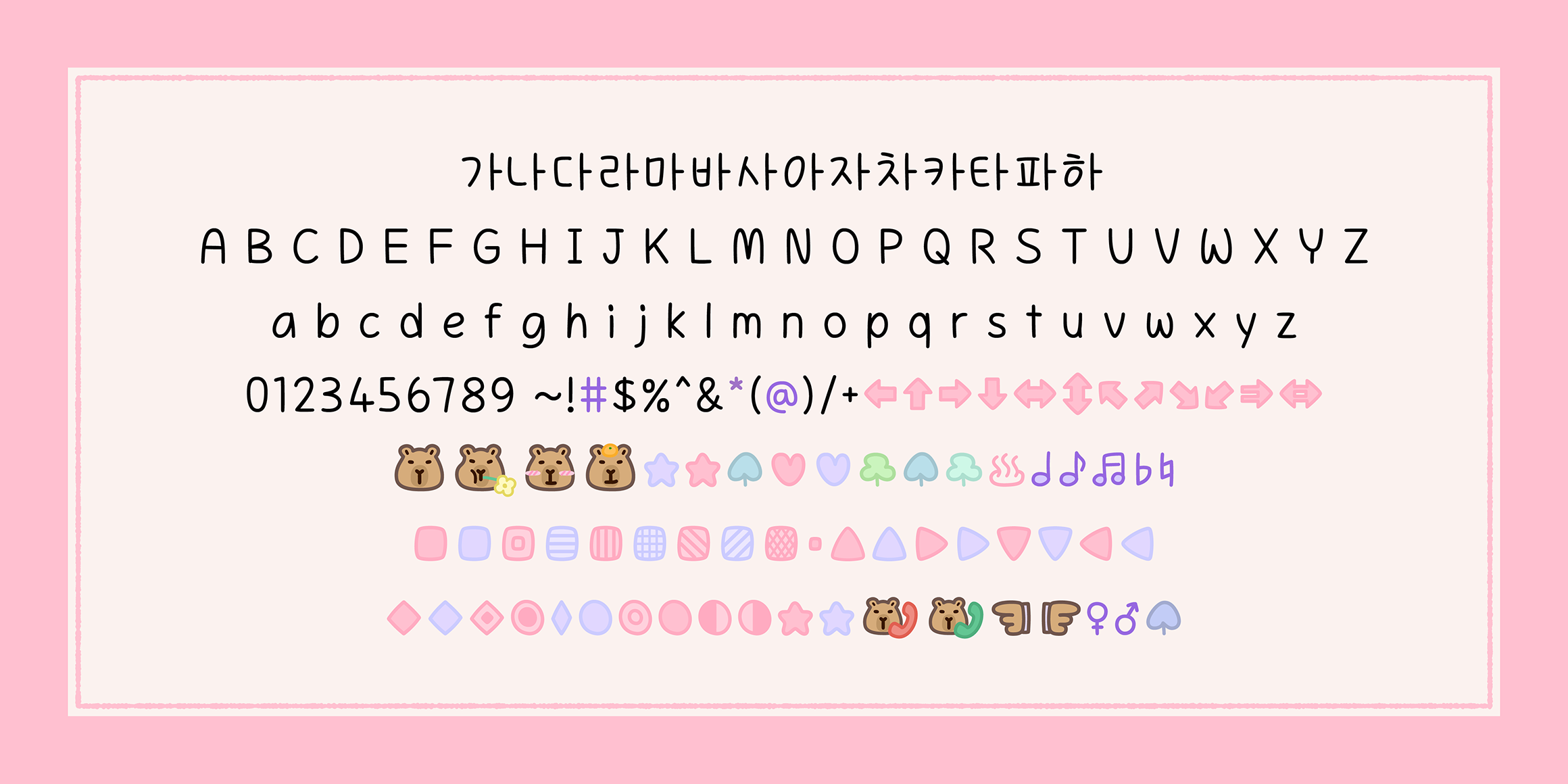
we’ve captured the warm, friendly spirit of the capybara in the 'CozyCapybara' font.
Its soft, rounded curves bring a cozy and tender impression to every word.
- If you type ;), ;>, :!: and :?: the note on stars will appear!
- Support colorful dingbat in#*@※←↑→↓↔↕↖↗↘↙⇒⇔▒■□▣▤▥▦▧▨▩▲△▶▷▼▽◀◁◆◇◈◉◊○◎●◐◑★☆☎☏☜☞♀♂♠♡♣♤♥♧♨♩♪♬♭♮.
- In environments that do not support color dingbats, they will be displayed in black and white.
- Support Latin, Japanese(hiragana,katakana), and Cyrillic characters.